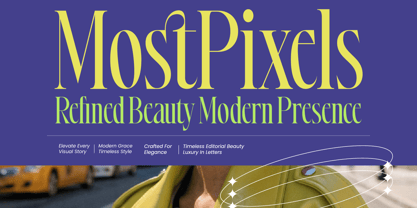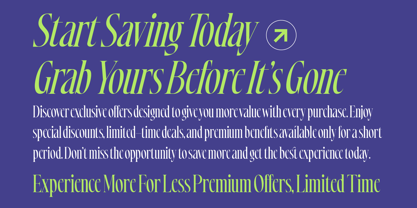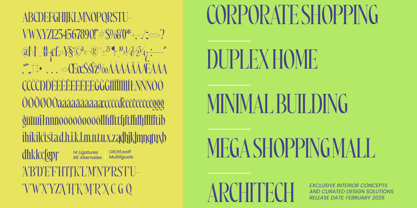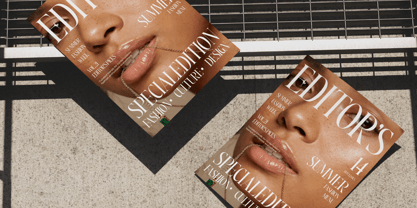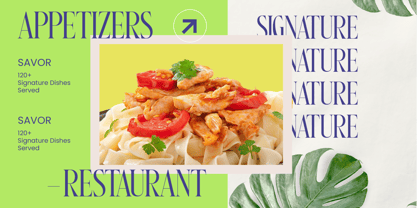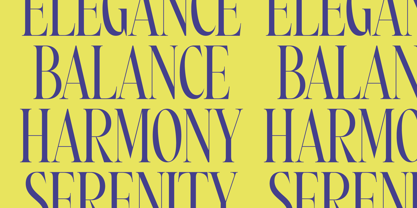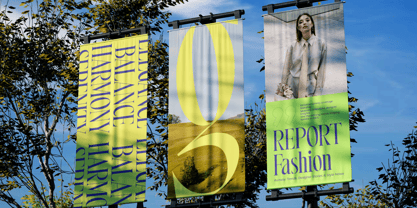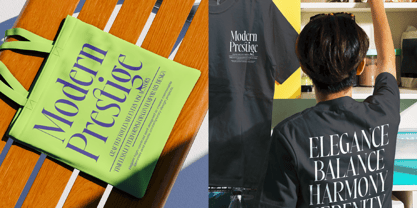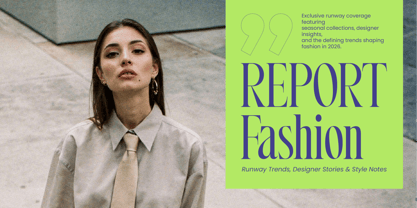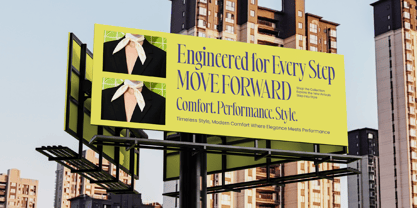
Most Pixels
von Timelesstype Studio
Die Schriftfamilie Most Pixels wurde von Heru Utama Putra entworfen und von Timelesstype Studio veröffentlicht. Most Pixels enthält 2 Stile und Familienpaketoptionen. Mehr über diese Familie
Elevate your brand's visual identity with a touch of high-fashion sophistication and unmatched grace. Most Pixels – Modern Elegant Serif is a high-contrast serif that perfectly balances modern aesthetics with timeless elegance. Its tall, condensed letterforms and razor-sharp serifs create a striking presence that commands immediate attention, making it an essential asset for any luxury-oriented project.
Designer: Heru Utama Putra
Foundry: Timelesstype Studio